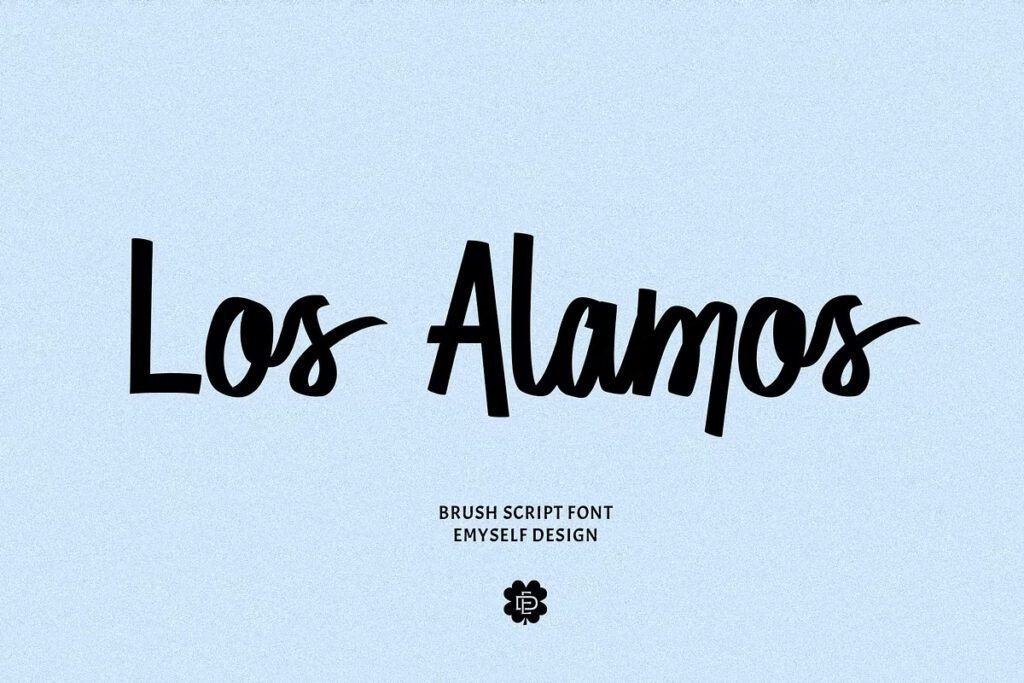
Elevate Your Designs with “ED Los Alamos” – The Handwritten Brush Script Font
ED Los Alamos is a beautifully crafted handwritten brush script font that brings a unique and creative flair to your design projects. Whether you’re working on logotypes, printed quotes, invitations, or product packaging, ED Los Alamos offers the versatility and elegance you need to make your work stand out.
Why “ED Los Alamos” is the Perfect Choice for Your Design Needs
1. Handwritten Brush Style ED Los Alamos features a natural, handwritten brush style that adds a personal and artistic touch to your designs. The brush strokes give the font a dynamic and organic feel, making it perfect for projects that require a creative and authentic look.
2. Extensive Glyph Collection With a total of 422 glyphs, ED Los Alamos provides a wide range of characters to choose from. This includes uppercase and lowercase letters, punctuation marks, symbols, stylistic sets, and ligatures. The extensive glyph collection ensures that you have the flexibility to customize your designs to suit your needs.
3. Multilingual Support ED Los Alamos is equipped with multilingual support, making it an excellent choice for international projects. Whether you’re designing for a global audience or working on a project that requires multiple languages, this font has you covered.
4. Versatility in Application This font is perfect for a variety of creative projects, including logotypes, printed quotes, invitations, cards, product packaging, headers, letterhead, apparel, web design, magazines, and books. Its versatile nature allows it to adapt to different design styles and purposes.
ED Los Alamos is more than just a font; it’s a tool for creativity. Its handwritten brush style, extensive glyph collection, and multilingual support make it the ideal choice for designers looking to add a personal touch to their work. Whether you’re creating logotypes, invitations, or product packaging, ED Los Alamos provides the elegance and versatility you need to make your designs truly special.